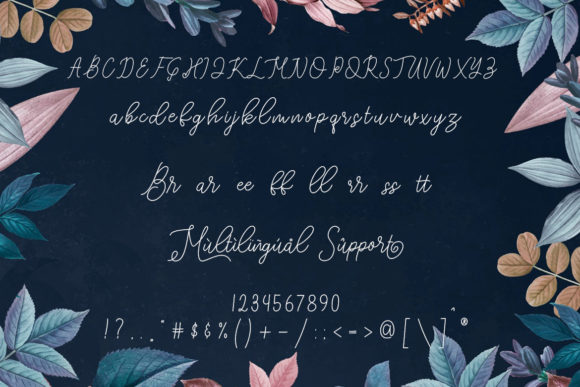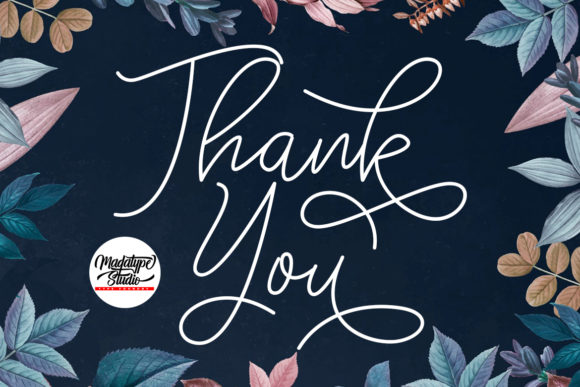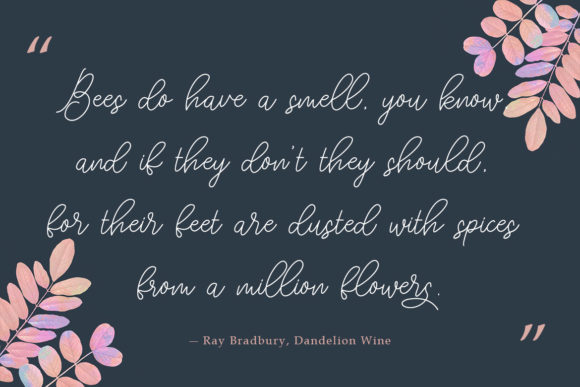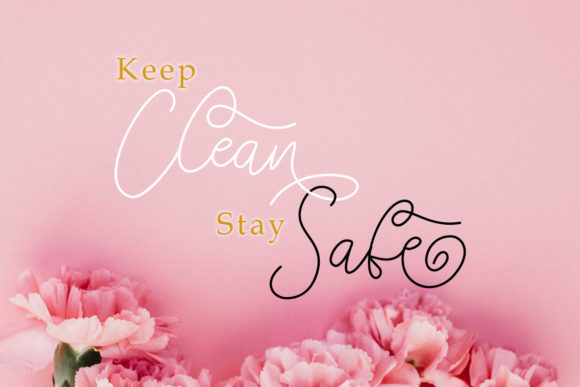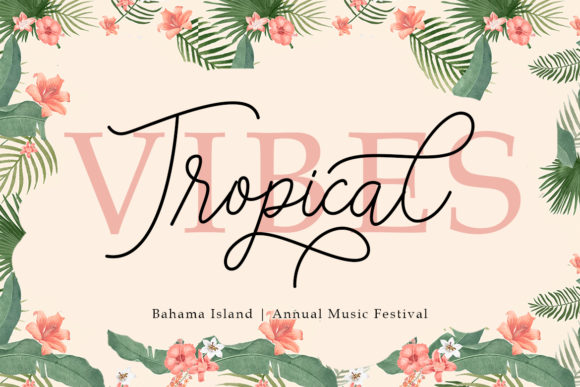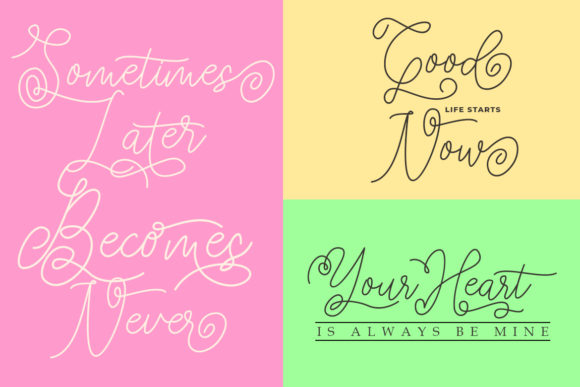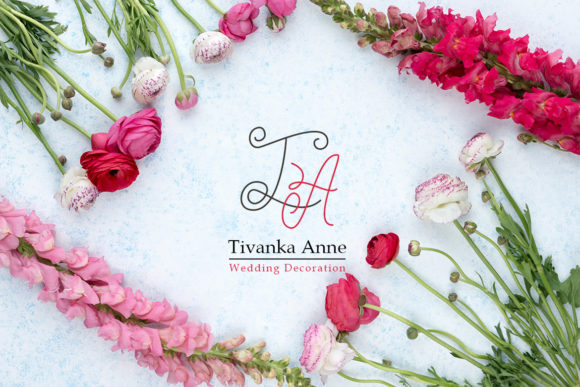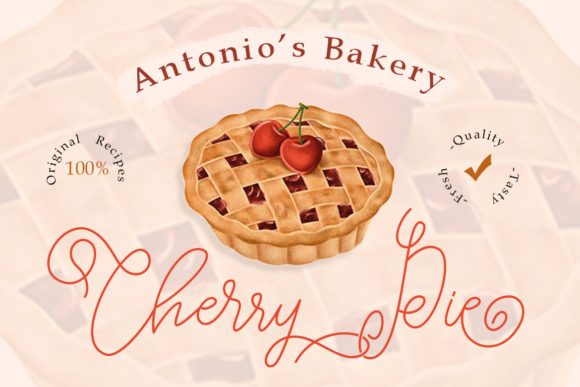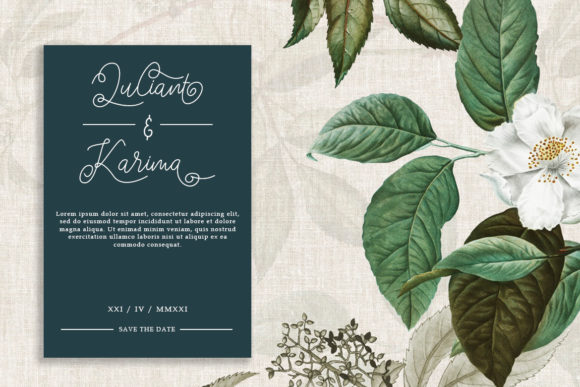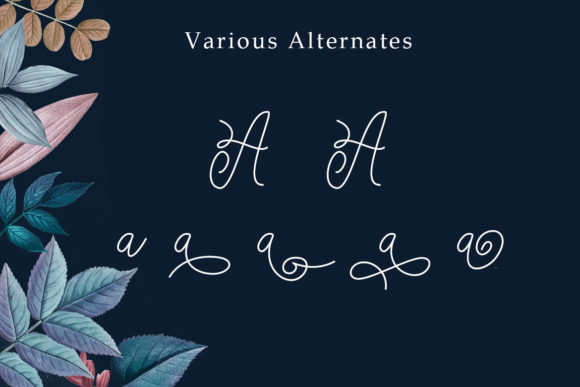
Brahmone Font
About Brahmone Font
Brahmone is lovely monoline handwritten font with a unique appeal. It is perfectly suited for a wide variety of crafting projects!